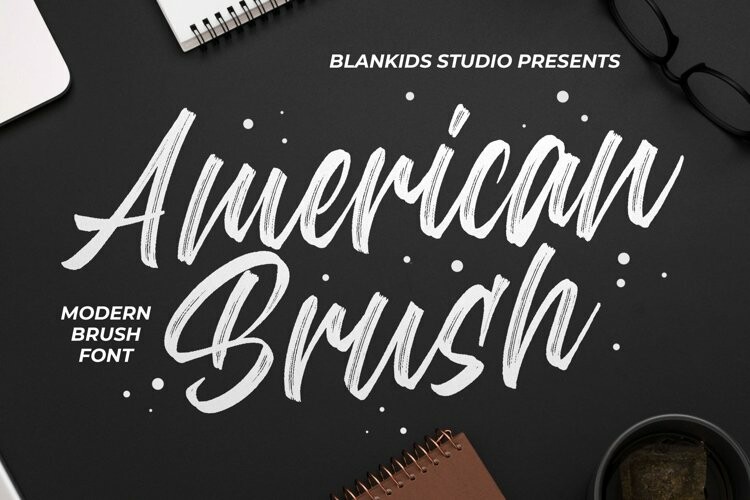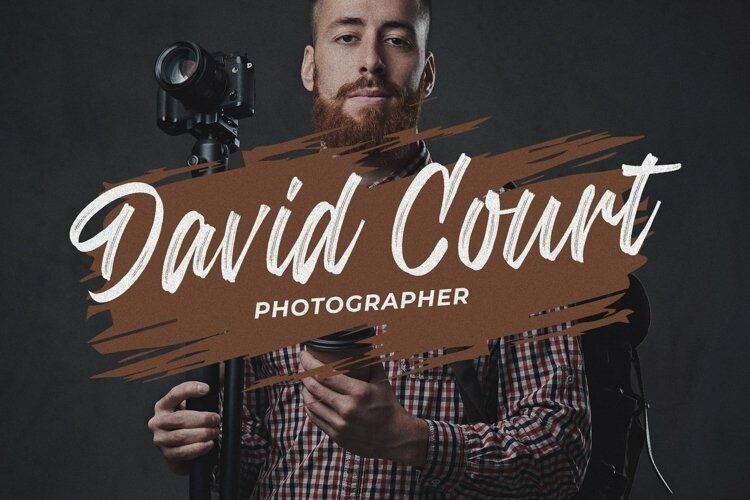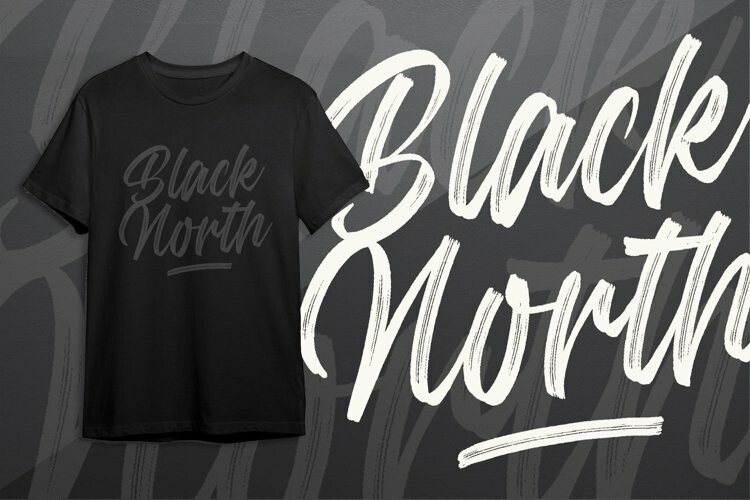
American Brush Font
American Brush FontAmerican Brush a Modern Brush Font, Inspiring from lettering brush style typography. This font is perfect for a design that makes it more attractive and playful. made with a very good level of aesthetics making this font suitable for book cover, poster, packging, merchandise, logotype and much more.